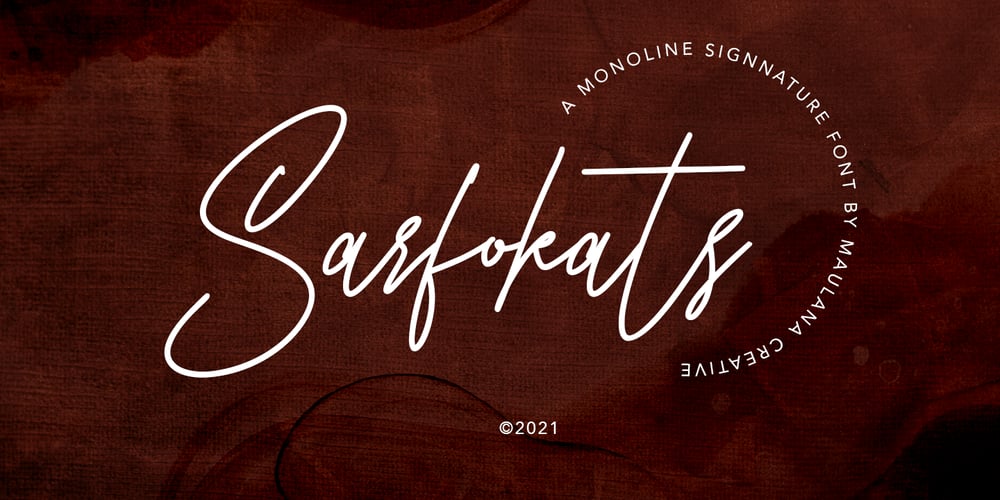
Sarfokats Font Family was designed by Gilang Maulana and published by Maulana Creative. Sarfokats contains 1 styles and family package options. Sarfokats Monoline Signature FontGive your designs an authentic handcrafted feel. Sarfokats Monoline SIgnature Font is perfectly suited to logo, stationery, branding, typography quotes, magazine or book cover, website header, clothing, branding, packaging design, restaurant and more.Thanks for use this font ~ Maulana